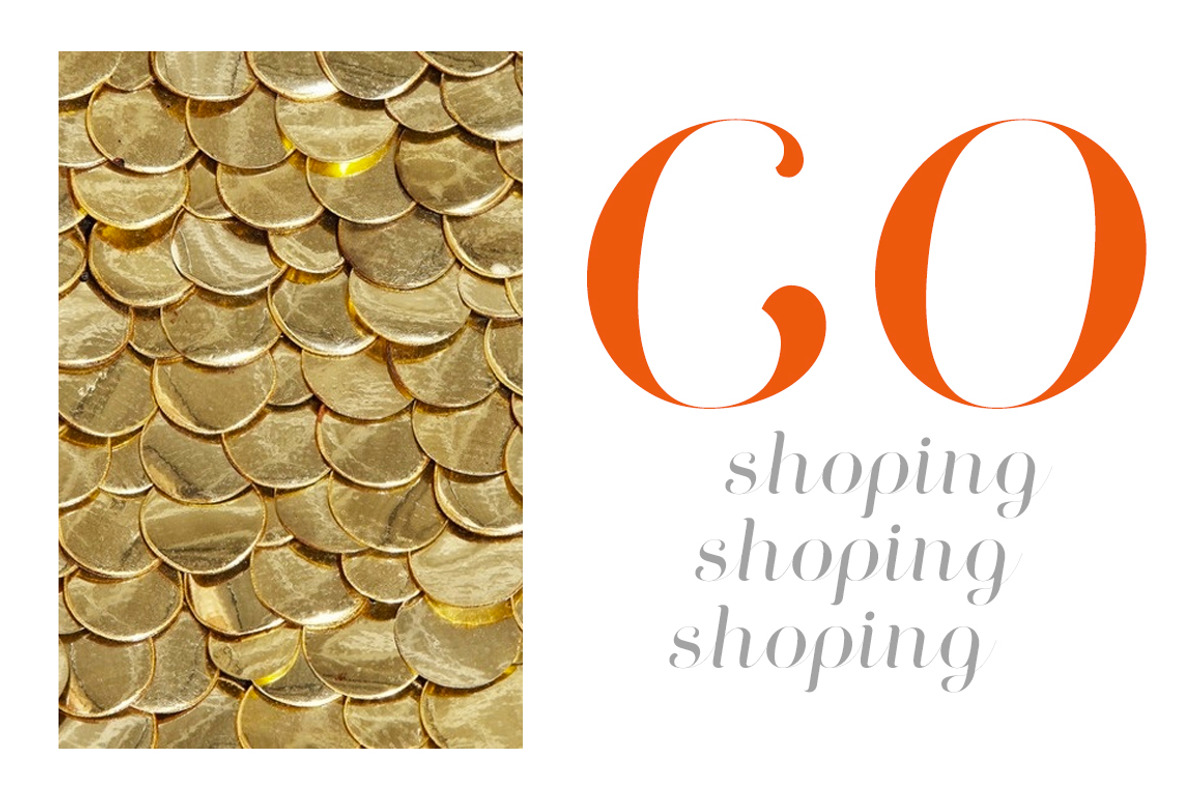
Curator family
Proudly introducing 'Curator'. It's serif based family that includes 11 fonts:
- regular
- medium
- bold
- black
- italic
- italic medium
- italic bold
- italic black
- rounded
- stroked
- script